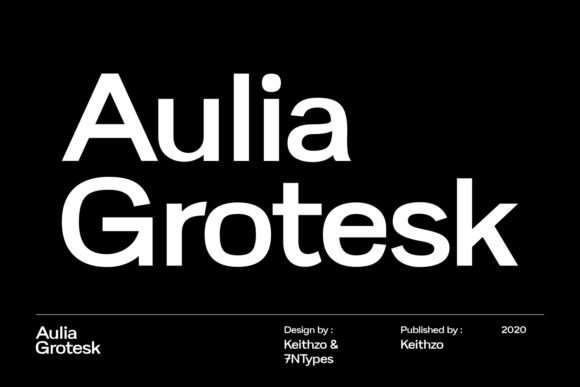
Enter the Aulia Grotesk Font, a bold and authentic sans serif font that’s about to become your new best friend. This font is designed to bring your creations to the next level, whether you’re working on a logo, a brochure, or a website. With its clean lines and modern aesthetic, the Aulia Grotesk Font is the perfect addition to any designer’s library.
Aulia Grotesk Font Key Features
- Font Family: Aulia Grotesk is a sans-serif font family designed for modern and minimalist designs.
- Font Size: Offers a range of font sizes, including 6 weights (Hairline, Light, Regular, Medium, Bold, Black) for flexible typography.
- Resolution: Optimized for high-resolution displays, making it suitable for digital and print media, including web, mobile, and signage.
- Unique Characteristics: Features a distinctive geometric shape with subtle rounded corners, giving it a clean and modern look.
- Language Support: Supports a wide range of languages, including Latin, Cyrillic, and Greek scripts, making it a versatile choice for global designs.
Aulia Grotesk Font Review
As a designer, I was excited to dive into the world of Aulia Grotesk Font. I must say, it has some great features that make it a solid choice for your next project.
- Unique and quirky feel: Aulia Grotesk Font has a distinct personality that sets it apart from other fonts.
- Highly legible: The font is designed to be easily readable, making it perfect for body text or headings.
- Works well in digital formats: Aulia Grotesk Font looks great on screens, making it a great choice for digital projects.
- May not be suitable for formal or traditional projects: The font’s quirky feel may not be the best fit for formal or traditional projects.
- Lack of language support: Aulia Grotesk Font may not include support for non-Latin languages, which could be a limitation for some projects.
Overall, I think Aulia Grotesk Font is a great addition to any designer’s toolkit. While it may not be the best fit for every project, it’s a solid choice for those looking for a unique and legible font. With some careful consideration of its limitations, I think Aulia Grotesk Font can help take your designs to the next level.
Tips for Getting the Most Out of Aulia Grotesk
Here are some tips to get the most out of Aulia Grotesk:
- Pair Aulia Grotesk with other fonts to create a unique and eye-catching design.
- Use Aulia Grotesk for headings and titles to create a bold and modern look.
Aulia Grotesk is a versatile font that can be used in a variety of projects, including:
- Business cards and resumes
- Use Aulia Grotesk Font for headings and titles to give a modern and sophisticated look.
- Combine Aulia Grotesk Font with a simple sans-serif font for body text to create a clean and readable design.
- Experiment with font sizes and line heights to create a visually appealing hierarchy of elements.
- Use high-quality travel images with a simple white or light-colored background to let the font shine.
- Choose a limited color palette with neutral tones to create a cohesive and modern design.
- Use Aulia Grotesk Font for headings and titles to create a bold and eye-catching effect.
- Combine Aulia Grotesk Font with a distressed or grungy font for body text to create a retro-inspired look.
- Experiment with font sizes and line heights to create a visually appealing hierarchy of elements.
3 Creative Project Ideas Using Aulia Grotesk Font
Project 1: Minimalist Travel Blog
Create a simple yet elegant travel blog using Aulia Grotesk Font as the primary font. The font’s clean lines and geometric shapes will perfectly complement the travel theme.
How to use Aulia Grotesk Font:
Project 2: Retro-Style Menu Board
Create a vintage-inspired menu board using Aulia Grotesk Font as the primary font. The font’s geometric shapes and bold lines will perfectly complement the retro theme.
How to use Aulia Grotesk Font: